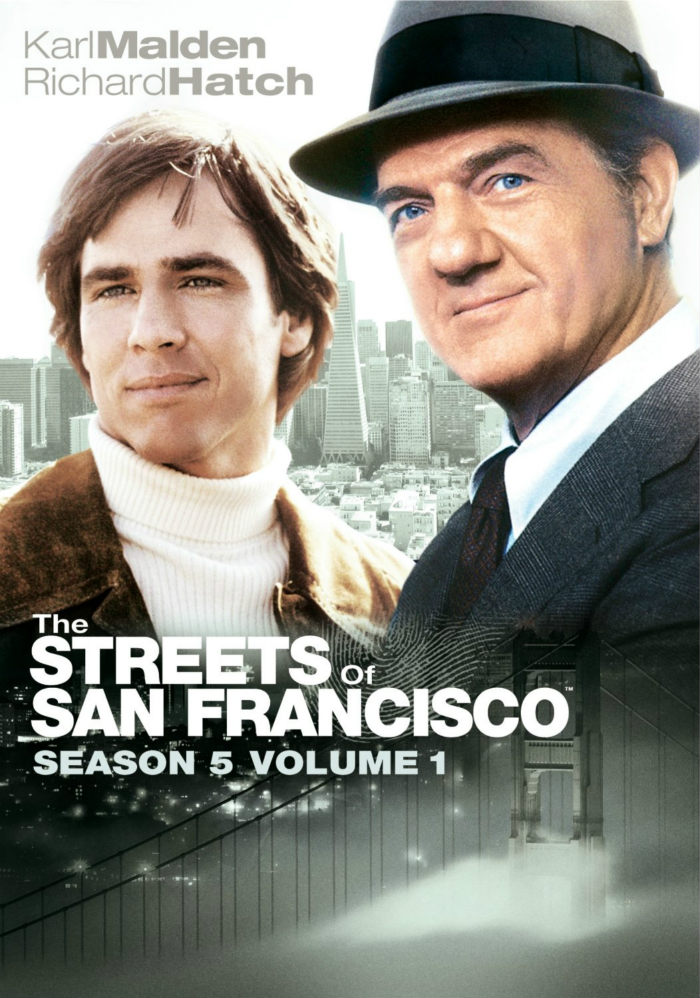
Streets of San Francisco (TV Show) Font
CrimeThe Streets of San Francisco is a 1970s crime drama TV show that follows the lives of two San Francisco detectives, Mike Stone and Steve Keller, as they solve various cases in the city. The show ran for five seasons and starred Karl Malden and Michael Douglas.
The title font used in the poster for the TV show is Helvetica Neue LT 95 Black. Helvetica Neue is a modern sans-serif typeface that was developed in the late 1980s by Swiss designer Max Miedinger based on the original Helvetica font created in 1957.